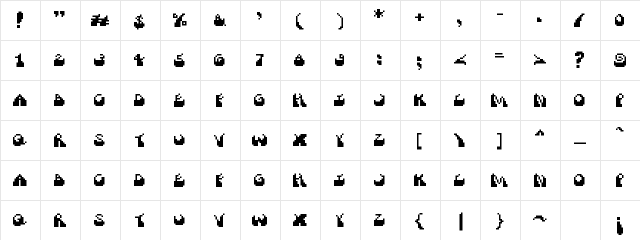
FunkyChip Medium
Design Context for FunkyChip Typeface
FunkyChip trades formality for fun, with bouncy, characterful letterforms that bring warmth and energy to any project.
Great for children's books, toy packaging, family event branding, and casual consumer-facing design.
Font Pairing: Pairs well with a rounded or humanist sans for body copy, maintaining the friendly tone without relying on FunkyChip to carry extended reading.
Pro Tip: Avoid using FunkyChip for long passages of text — it works best for headlines, labels, and short calls to action.